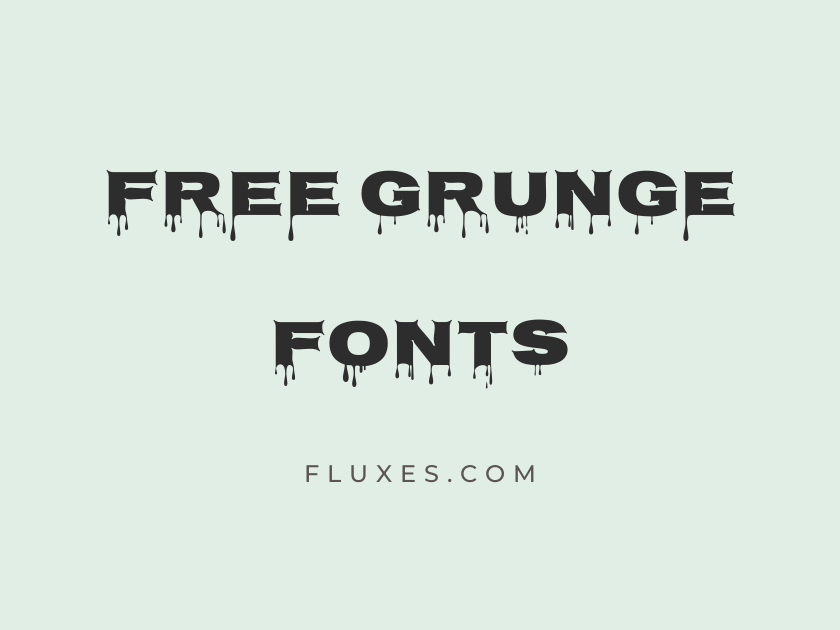
61 Best Free Grunge Fonts
Grunge typography earns its keep through damage: cracked edges, ink bleed, scorch marks, torn paper, and the kind of wear that looks like it survived something. It is the natural language of gig posters, skate graphics, horror titles, punk zines, streetwear drops, and anything that wants to feel handmade, rebellious, or a little dangerous. The good news for anyone hunting free grunge fonts is that Google Fonts has quietly built up one of the deepest libraries of distressed, textured, and hand-scrawled typefaces available anywhere, all free to download and use in commercial work.
What follows covers the full range of that grit: horror-movie drips, blackletter punk, western wanted-poster wear, stencil and military stamps, spray paint and marker textures, and the kind of loose hand lettering that looks torn straight from a mixtape cover.
Nosifer
Blood-soaked flyers for the midnight show
Nosifer
Nosifer drips like it was lettered in tar. It is built for horror posters and metal album covers, and it has almost no application at body text sizes, where the dripping strokes turn to mush. Use it big, use it sparingly, and let it do the shouting.
Haunted house open every night this week
Creepster is the default horror-grunge typeface for a reason: warped, uneven strokes that read as decayed rather than clean. It pairs naturally with distressed textures and torn-paper backgrounds for Halloween promos, B-movie posters, and anything leaning into camp horror.
Warning: contents may be extremely disturbing
Jagged serifs and inconsistent stroke widths give Butcherman the feel of letters carved in a hurry. It suits slasher-film branding and grindhouse aesthetics far better than anything polished.
Eater
Rotten wood, rusted nails, condemned building ahead
Eater
Eater looks like it has been chewed at the edges, with rough, corroded outlines that read as decayed stone or eaten metal. It is a strong choice for zombie-themed branding, apocalyptic event flyers, or any project that wants texture built directly into the letterforms rather than applied afterward.
Vampiro One
Bite marks left on the dance floor
Vampiro One
Rounder and less aggressive than most horror display faces, Vampiro One trades sharp menace for a cartoonish, slightly campy dread. It works well for kid-friendly Halloween material or horror-comedy branding where full-throttle grunge would feel too heavy.
Ye olde tavern brawls every Friday night
A genuine blackletter face with rough, calligraphic weight, UnifrakturMaguntia brings medieval menace to metal logos, tattoo flash sheets, and anything that wants gothic authority. Its dense strokes clot at small sizes, so reserve it for headlines and short lockups.
UnifrakturCook
Forged in fire, sharpened by hand
UnifrakturCook
Heavier and blockier than its sibling UnifrakturMaguntia, UnifrakturCook leans into thick, ink-saturated strokes that suit metal band logos and heraldic grunge branding. It only ships in a bold weight, which fits its purpose: it was never meant to whisper.
Grenze Gotisch
Condemned property, enter at your own risk
Grenze Gotisch
Grenze Gotisch is a fractured take on blackletter, its strokes broken and jagged rather than smoothly calligraphic. That built-in damage makes it feel closer to spray-painted street type than a formal gothic script, which is what makes it useful for punk and hardcore show flyers.
Skull and crossbones, no survivors reported
Pirata One condenses gothic blackletter into a tighter, more graphic form, well suited to logos, badges, and single-word headlines. It carries an outlaw energy that works for pirate branding, biker crews, and metal merch alike.
Eagle Lake
Ancient curses written in trembling ink
Eagle Lake
Thinner and more calligraphic than most of its blackletter cousins, Eagle Lake reads as haunted rather than heavy. It is a good fit for gothic horror titling where you want dread without the visual weight of a full fraktur face.
Metal Mania
Loud amps, broken strings, no regrets
Metal Mania
Metal Mania looks hand-scratched into a leather jacket, all sharp points and uneven baselines. It is one of the most literal “metal” fonts on Google Fonts, best used at large sizes for band names and merch rather than anywhere legibility matters.
New Rocker
Backstage passes for the reunion tour
New Rocker
New Rocker splits the difference between blackletter and heavy metal branding, with spiked serifs and an aggressive stance. It reads best in all caps at poster scale, where its exaggerated details have room to breathe.
Rubik Distressed
Property condemned, structure unstable, keep out
Rubik Distressed
Rubik Distressed takes the clean geometry of Rubik and runs it through visible erosion, cracked edges, and pitted surfaces, like letters cast in cement and left outside for a decade. It is part of a whole family of Rubik texture fonts, and this one is the most literally “grunge” of the bunch: worn, weathered, and structurally sound only in appearance.
Limit yourself to one or two grunge display fonts per project. Stacking several aggressive, high-texture faces together usually reads as noisy rather than intentional.
Grunge typography rewards a bit of restraint even at its most chaotic. Pick one font that carries the damage, keep everything else in the layout simple, and the wreckage will do exactly the job it is meant to do.